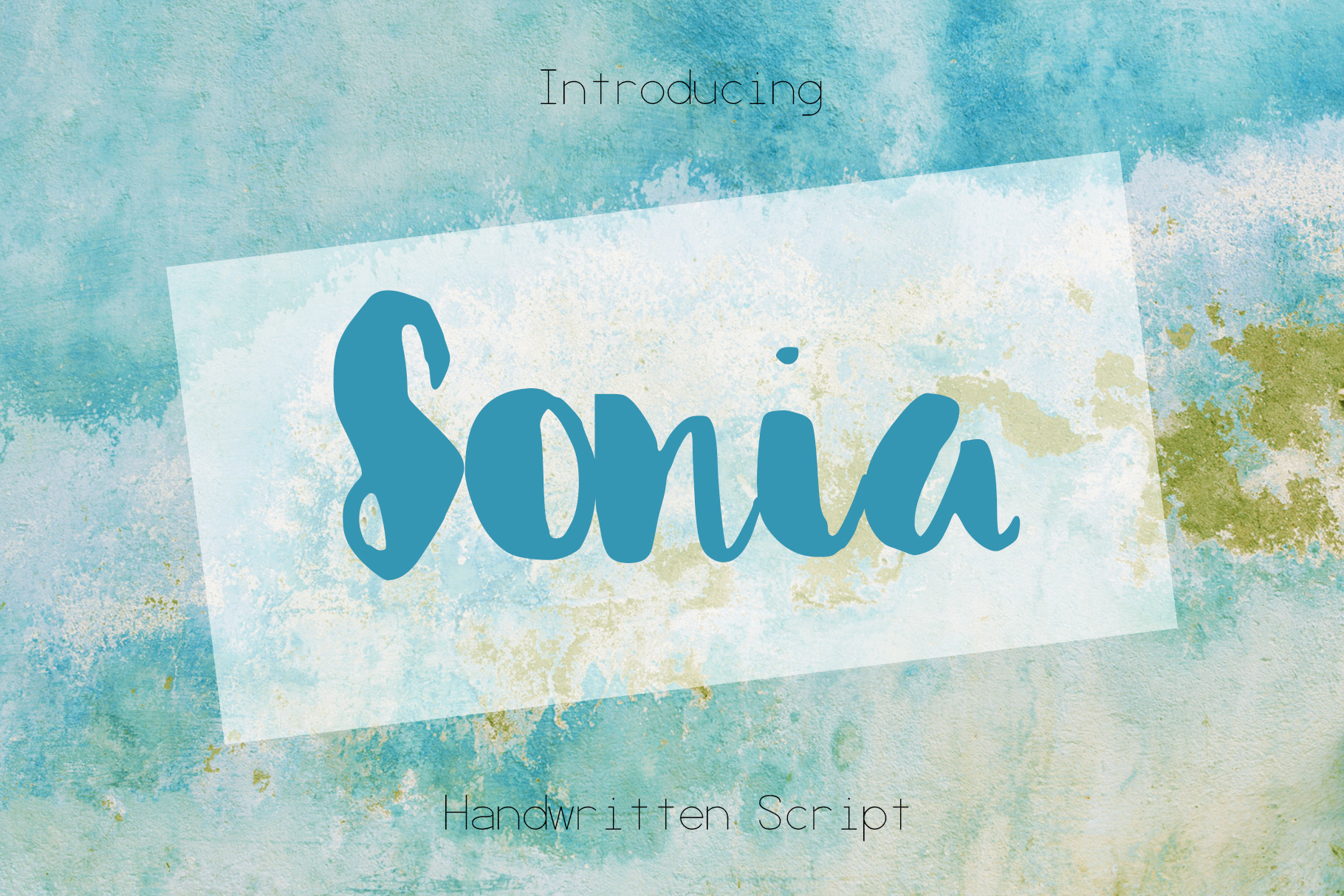
Sonia Font
Introducing Sonia, a gorgeous handwritten brush font.💗 A cute decorative script with biggish letters. Perfect for any calligraphic and logo designs, baby shower and birthday invitations.
Sonia font contains upper & lowercase characters, full set of punctuation and numerals.